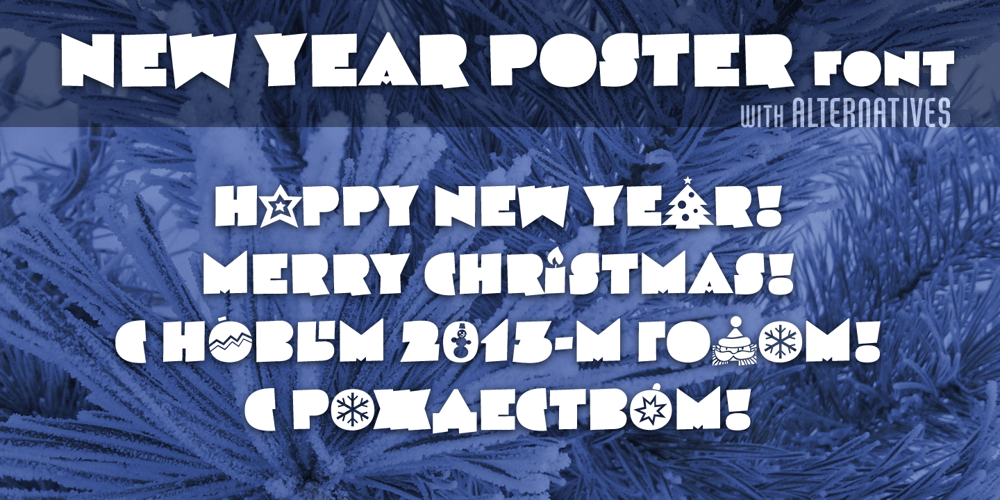
New Year Poster Font Family was designed by Zakhar Yaschin and published by FontaZY. New Year Poster contains 1 styles and family package options. This display font is perfect choice for the whole variety of New Year greeting cards, advertisements, posters and banners. It has alternative graphic symbols, that fills any word or line with holiday spirit.